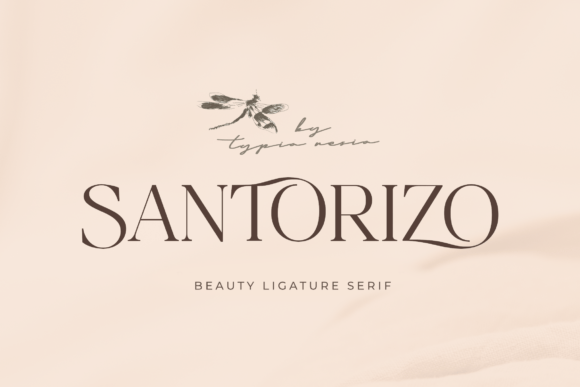
Are you looking for the perfect font to take your design projects to the next level? Look no further than Santorizo Font, the best font for name card designs and more. Created by Typia Nesia, this stunning beauty ligature serif font offers extra features that will add a touch of elegance and creativity to your work.
With Santorizo, you'll be able to create designs that stand out from the crowd. Whether you're designing a magazine, book, invitation, logo, or any other project, this font family is versatile enough to meet all of your needs. Its stunning ligatures and elegant curves are sure to captivate your audience and leave a lasting impression.
But Santorizo isn't just beautiful - it's also practical. Its legibility and readability make it an ideal choice for all types of designs. And with its extensive character set, you'll have all the tools you need to create truly unique designs that reflect your personal style and vision.